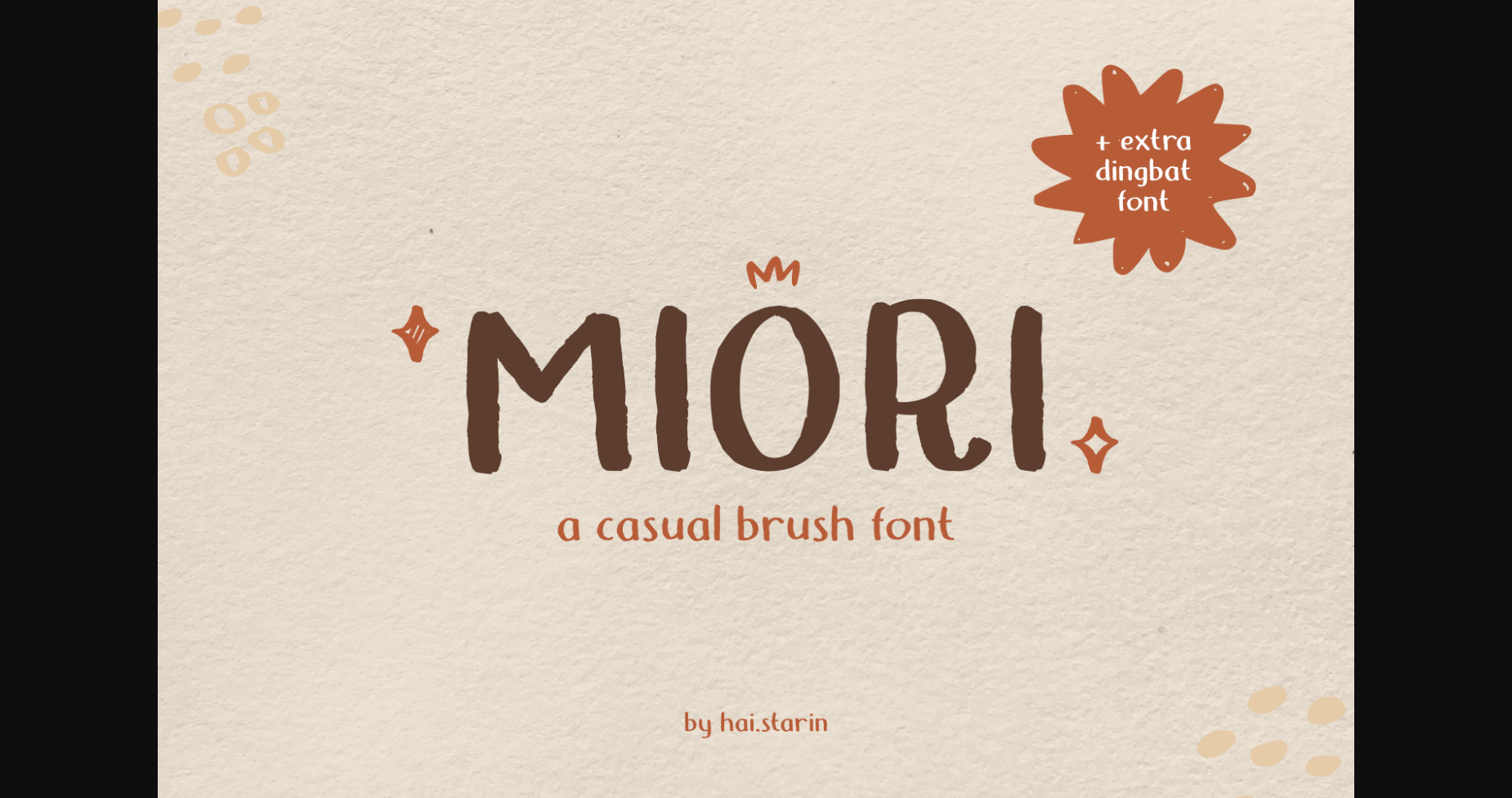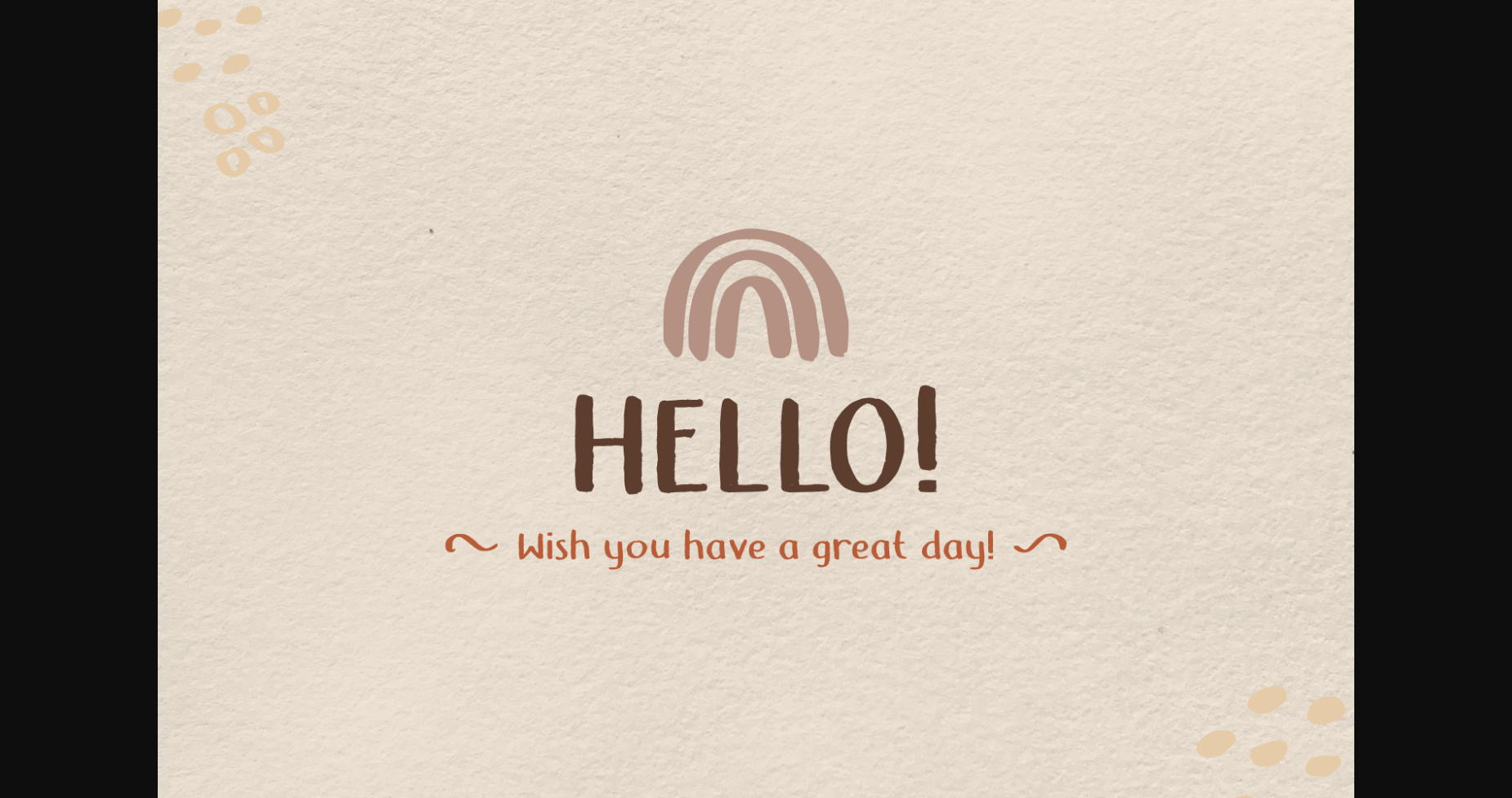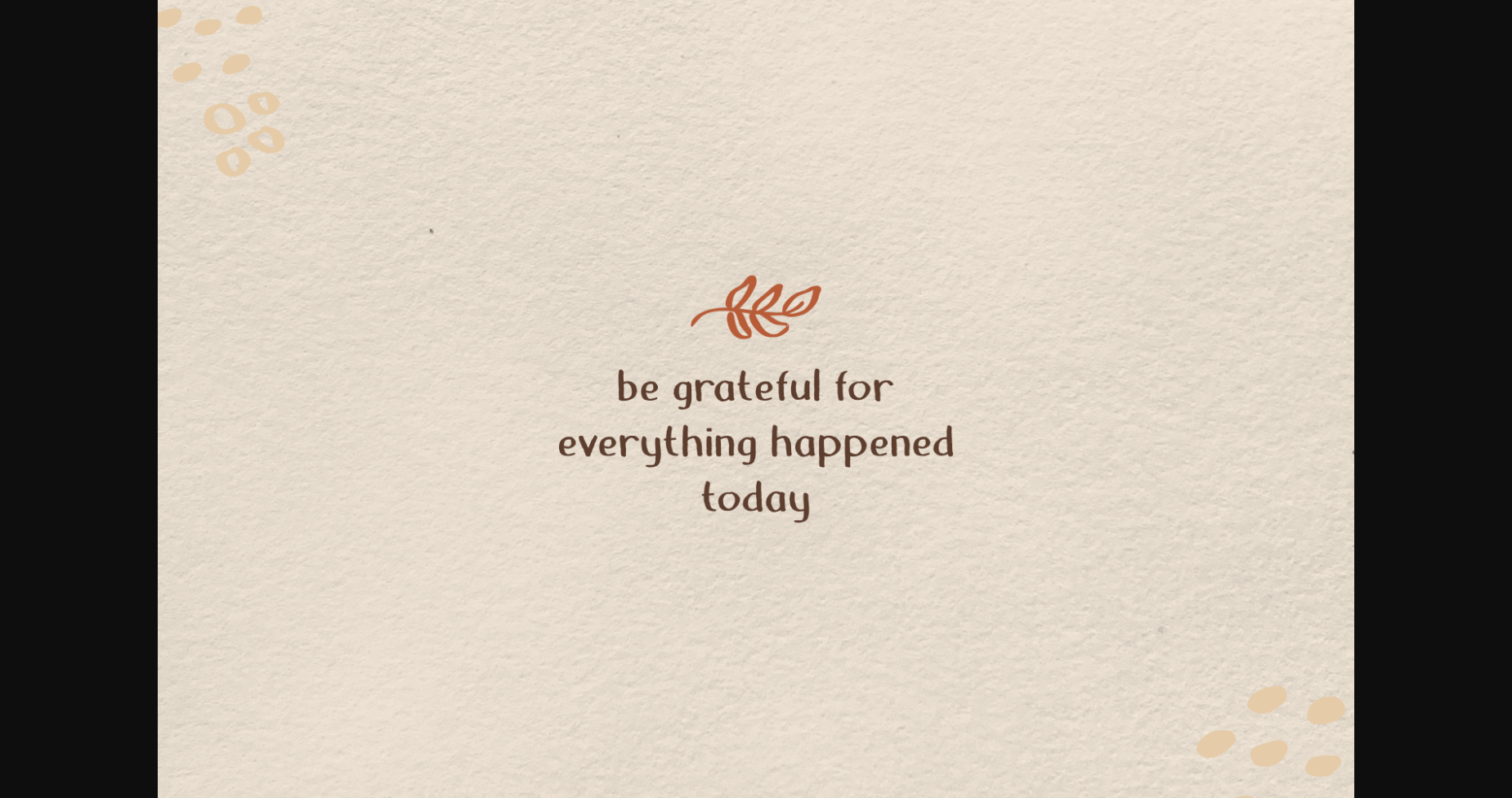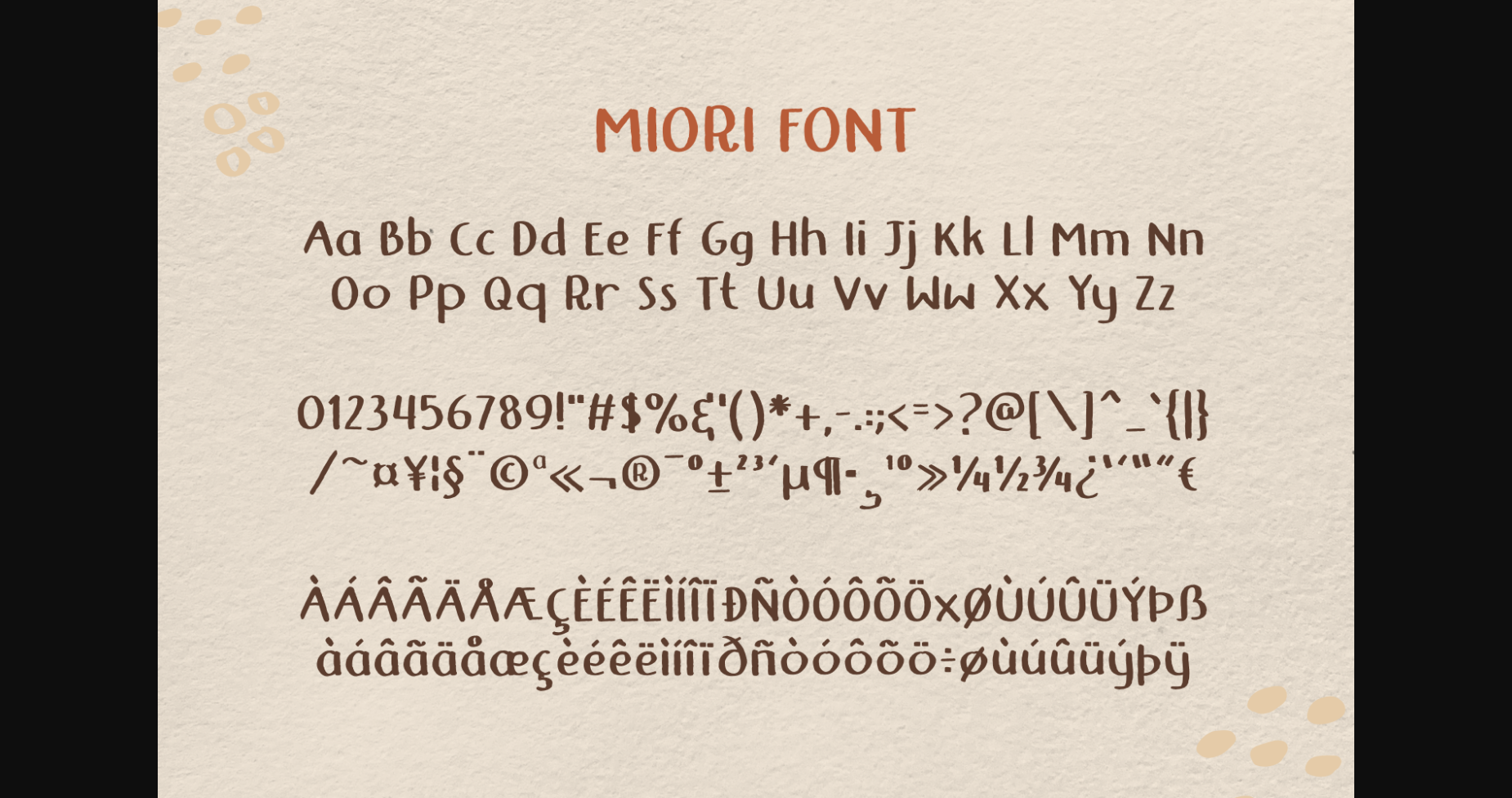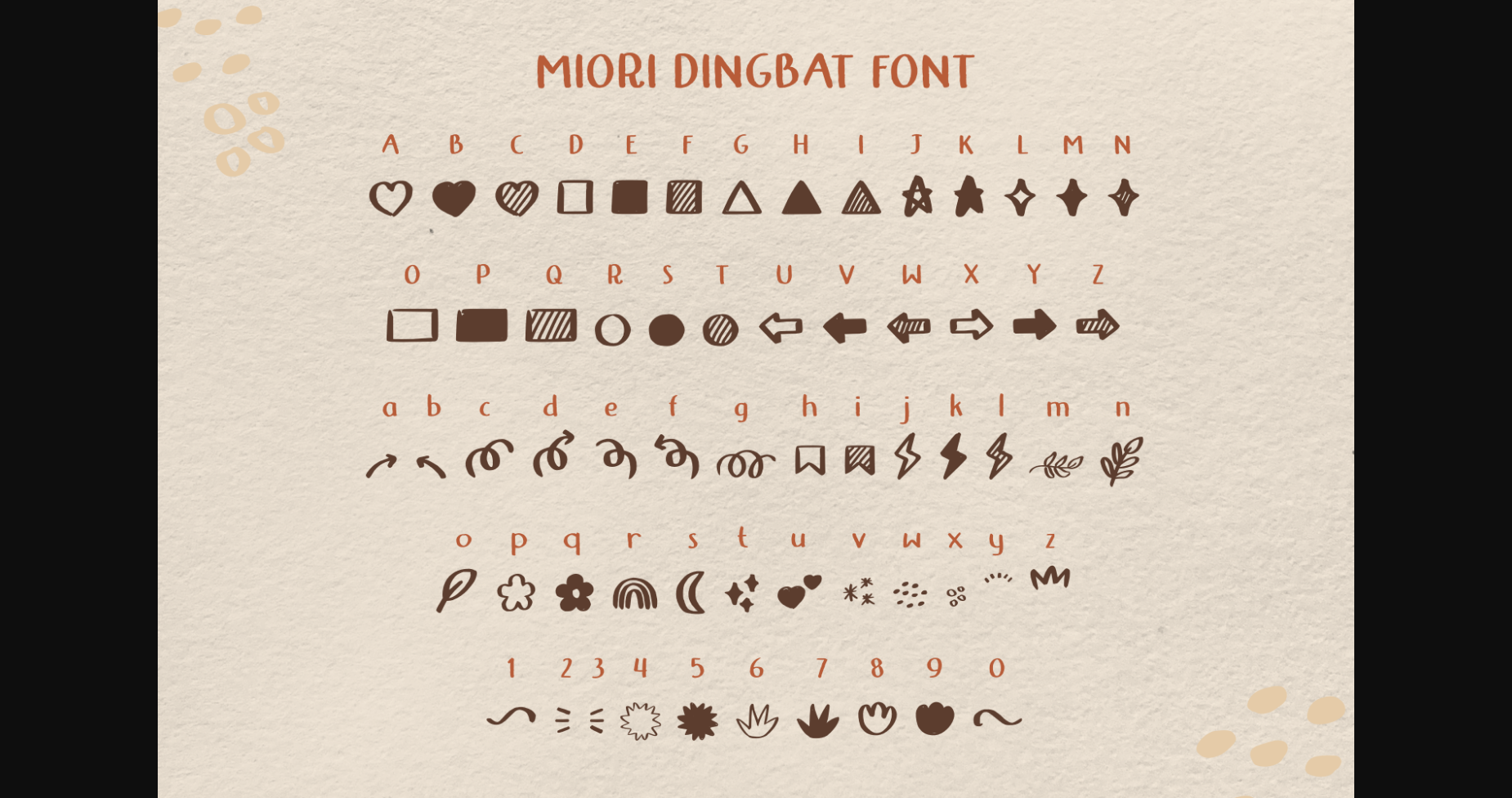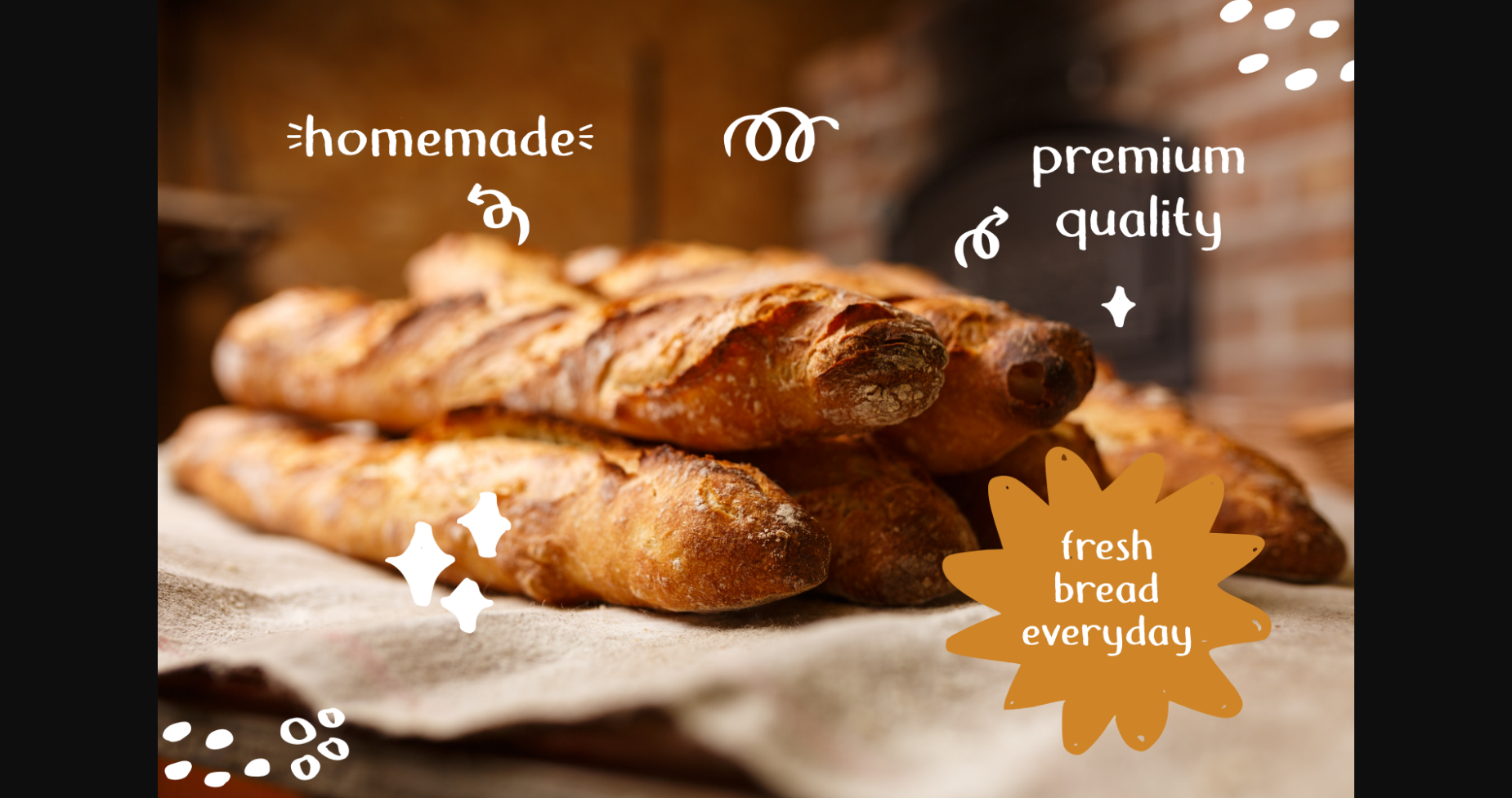
HomeSans Serif FontsMiori Font Sans Serif Fonts Miori Font FacebookXPinterestWhatsApp 1 of 9 ... Miori Font Poster 2... Miori Font Poster 3... Miori Font Poster 4... Miori Font Poster 5... Miori Font Poster 6... Miori Font Poster 7... Miori Font Poster 8... Miori Font Poster 9... About Miori Font Miori is a cute and casual sans serif brush and dingbats duo font. It is perfect for creating posters, printed quotes, digital designs, or any projects that require a cute and lovely look! DOWNLOAD NOW People also explored Oat & Nut Font New Year Font Another Monday Saturday Rumpus Room Filled Clara Signature Font You Are My Everything Font Vintage Style Surround Set of Objects Cr Jhodes Font 342 0 TagsMioriMiori Font Previous articleMilk Candy FontNext articleWaycli Font LEAVE A REPLY Cancel reply Comment: Please enter your comment! Name:* Please enter your name here Email:* You have entered an incorrect email address! Please enter your email address here Website: Save my name, email, and website in this browser for the next time I comment. Personal Use Free Ashay Personal Use Free Read more about this font Loopina Personal Use Free Read more about this font Spring Personal Use Free Read more about this font Fifteenth Century Personal Use Free Read more about this font BLOG 5 Fonts That Will Dominate Design Trends in 2026 5 Fonts for 2026 That Will Dominate Design Trends Typography plays a critical role in visual communication, and as we look ahead to 2026, it’s... Where to Buy American Fonts Online in 2024 Best Fonts for YouTube Videos: Make Your Thumbnails Stand Out How to Install and Use Fonts on Windows, macOS, and Web Projects